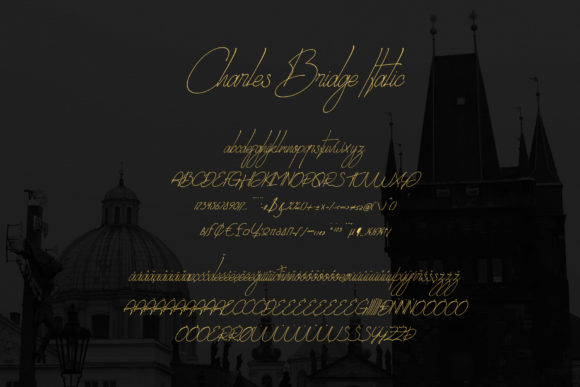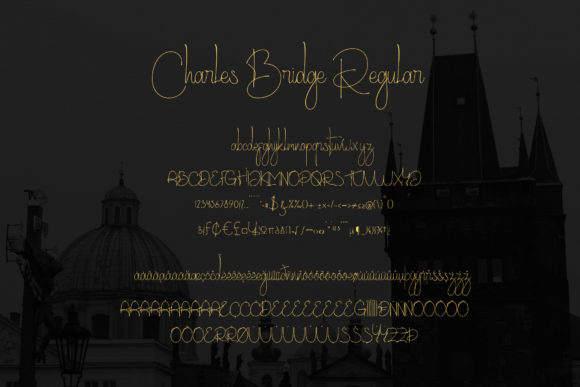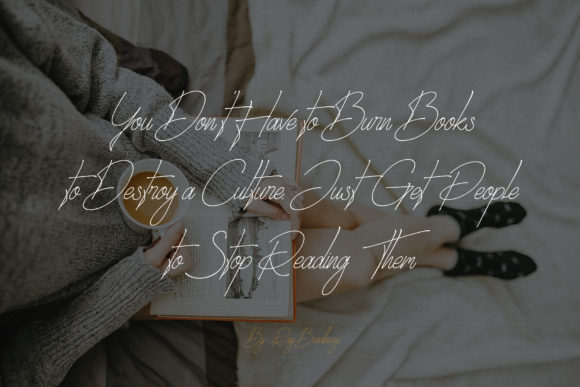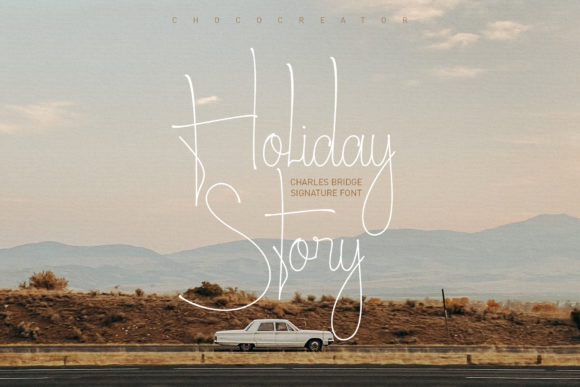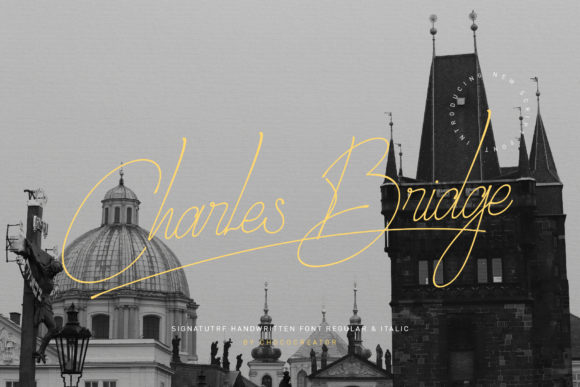
Charles Bridge Signature Handwritten Font
About Charles Bridge Signature Handwritten Font
Charles Bridge is a stylish modern calligraphy font with a chic flair. It is perfect for branding, wedding invitations and cards.